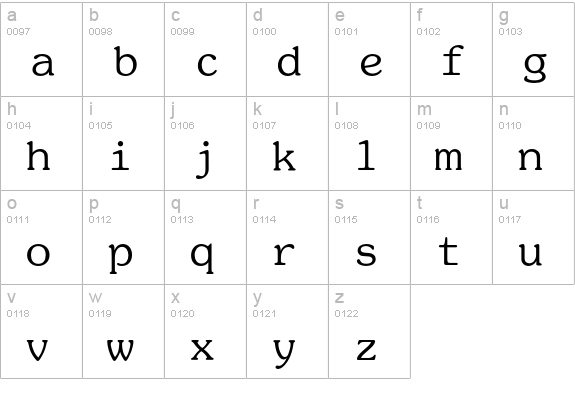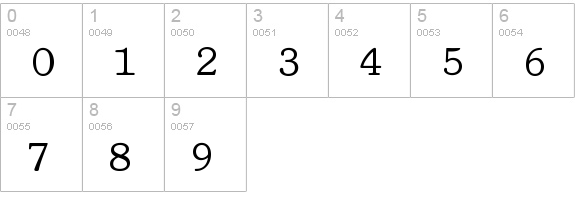
SouvenirMonoEF-Light Font Details
SouvenirMonoEF-Light is a refined, elegant variant in the SouvenirMonoEF typeface family \xE2\x80\x94 well suited to elegant body text, refined sub-headings, and luxury branding.
SouvenirMonoEF-Light font is a stunning typeface that combines elegance with modernity. Its sleek and sophisticated design makes it perfect for a wide range of projects, from branding and advertising to editorial and web design. With its clean lines and graceful curves, this font exudes a sense of refinement and professionalism. What sets SouvenirMonoEF-Light font apart is its versatility. It can effortlessly adapt to any design concept, whether it's a minimalist layout or a bold and vibrant composition. This font's smooth and legible characters ensure optimal readability, making it ideal for both print and digital applications. As an added bonus, SouvenirMonoEF-Light font is free to download exclusively at FontsMarket.com. This means that you can enjoy the beauty and functionality of this typeface without any cost. Whether you're a professional designer or a hobbyist, this font offers you the opportunity to elevate your creative projects without breaking the bank. So why wait? Add a touch of elegance and sophistication to your designs with SouvenirMonoEF-Light font. Download it for free at FontsMarket.com today and unlock a world of possibilities for your next project.